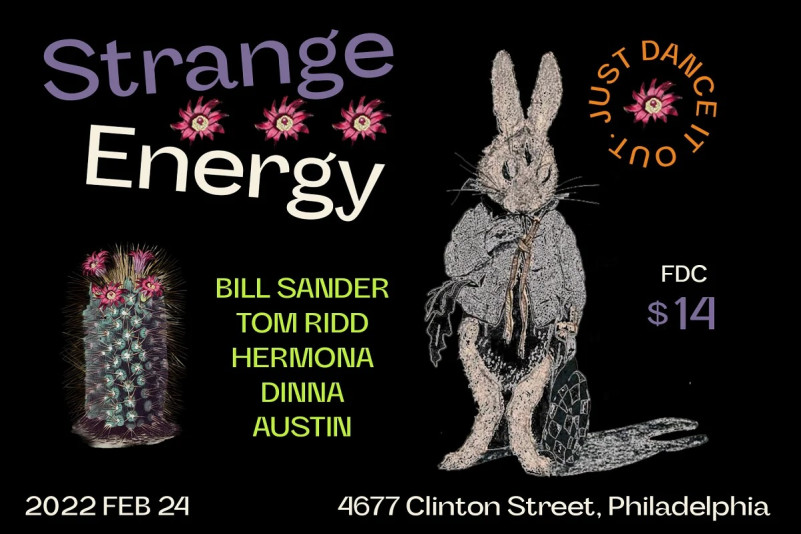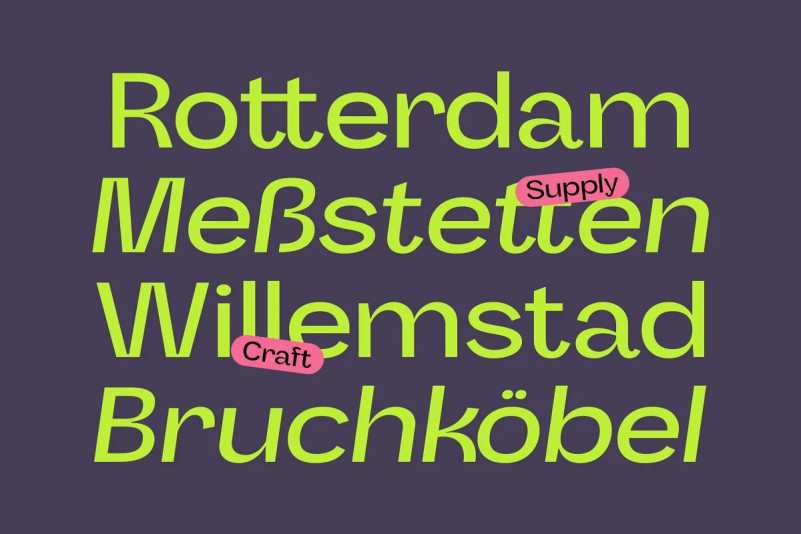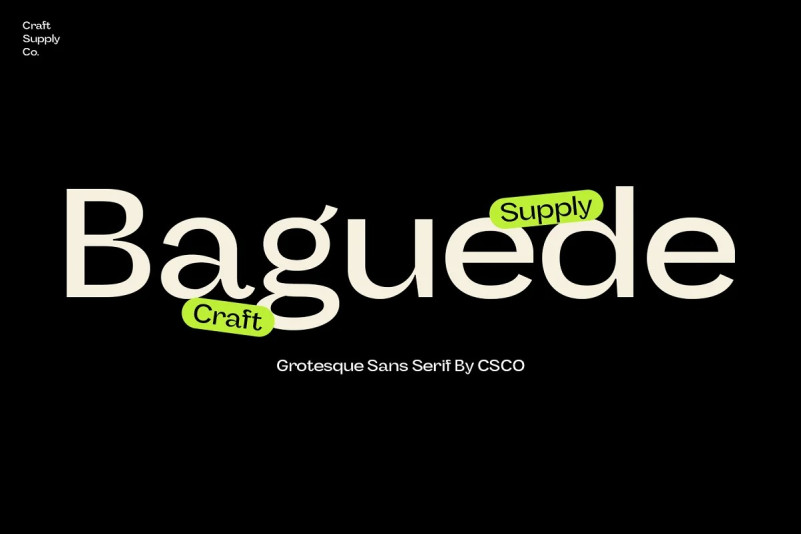
Baguede Font
Proudly present Baguede Sans Serif Font, a post-modern grotesque typeface with fancy and catchy touch to maintain a sophisticated feel. Incredibly versatile, this sans serif font is suitable for a wide spectrum of applications.